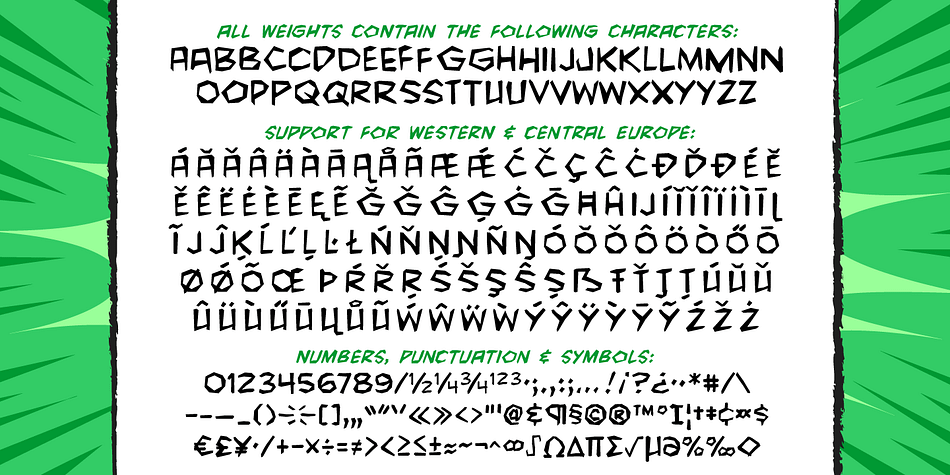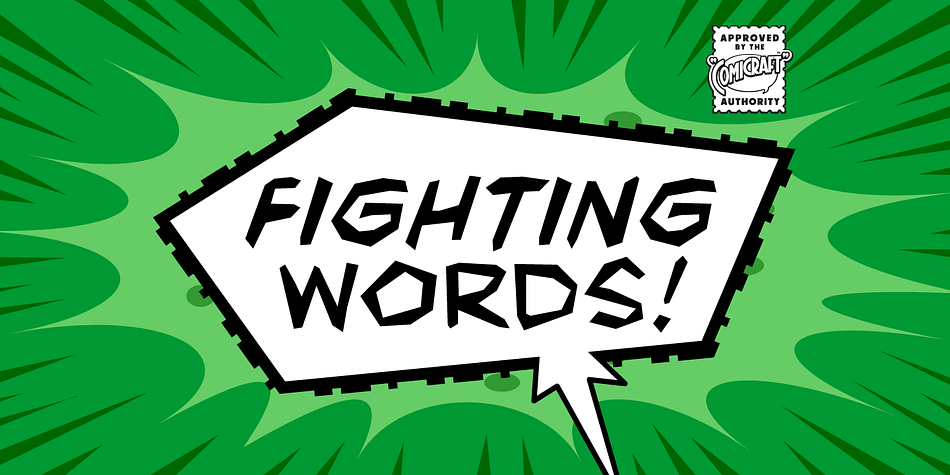
Designed by John Roshell, Fighting Words is a comic and hand display font family. This typeface has two styles and was published by Comicraft.
Hulk mad. Hulk so mad, Hulk broke font. Puny Comicraft no like mashed up font! Hulk no care. Hulk like to talk like Hulk has mouth full of marbles. Hulk smash! Get YadaYadaYada with FightingWords for only $139 and Hulk promise not punch your lights out.